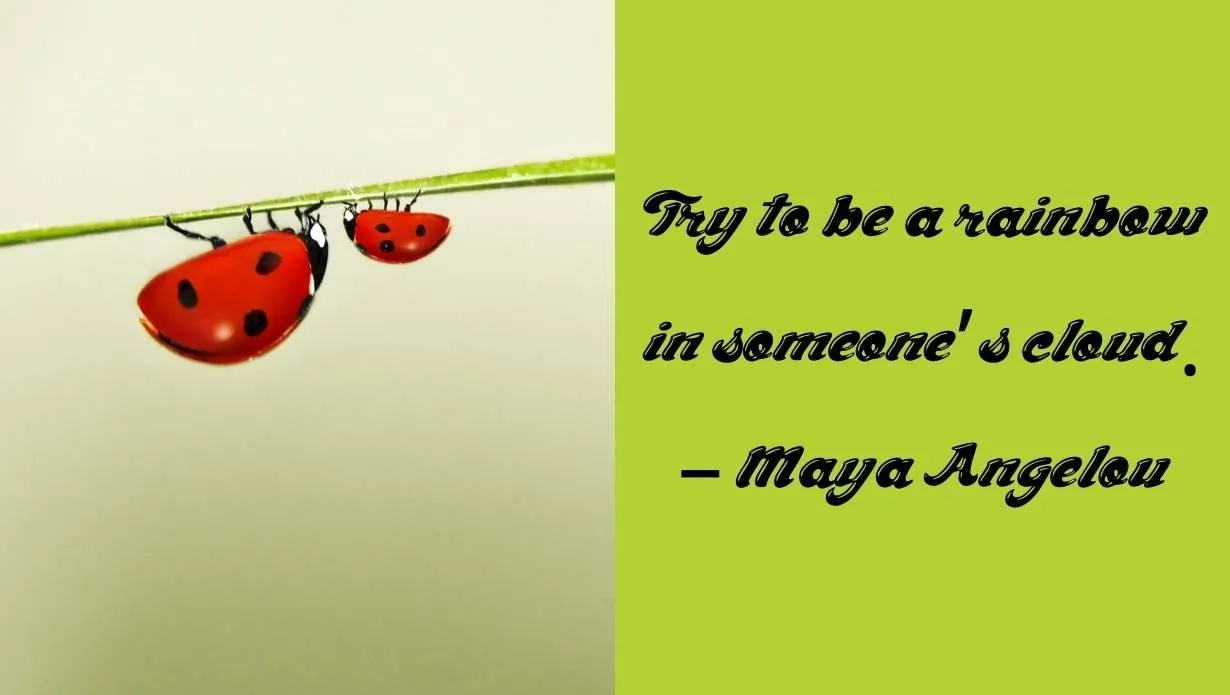
Now, we will introduce to you the best typeface style. This typeface is a member of the Handwritten typeface family. This font style is known as the name of Ladybug Font.
It was designed by a notable graphic designer called Microcreative. When this typeface was published, it gained popularity in a very short time.
This typeface has an attractive and eye-catching texture look for the users. The alternative font of this typeface is homemade apple font.